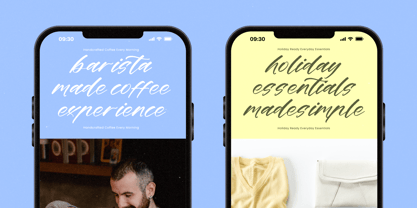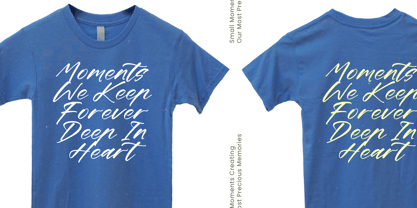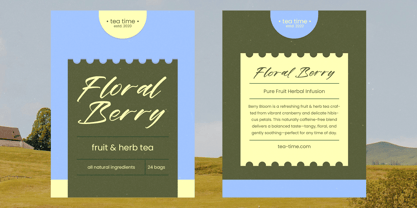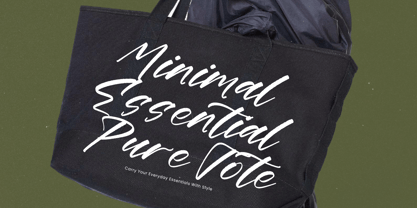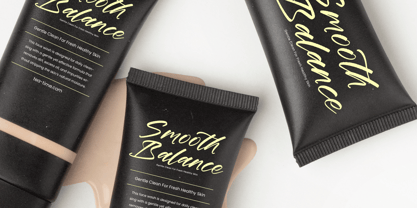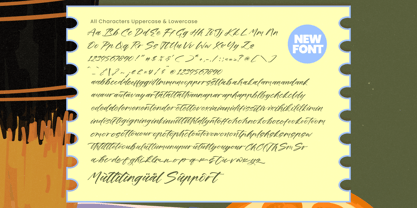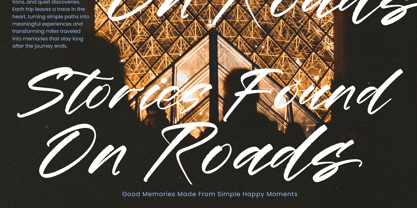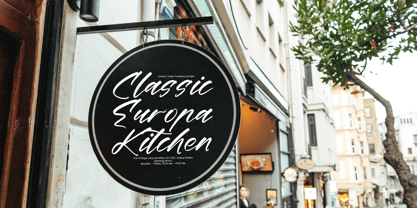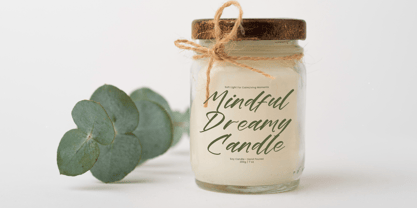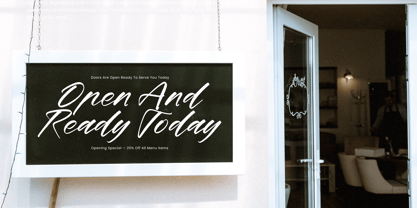
Tropical Coastal
von Stylishtype Studio
Die Schriftfamilie Tropical Coastal wurde von Heru Utama Putra entworfen und von Stylishtype Studio veröffentlicht. Tropical Coastal enthält 2 Stile und Familienpaketoptionen. Mehr über diese Familie
Tropical Coastal is a modern handbrush font crafted to bring vibrant coastal energy and natural texture into creative projects. Packed with 494 glyphs, including 136 dynamic ligatures and 26 stylistic alternates, this typeface delivers expressive movement, bold handwritten character, and flexible styling options suitable for logos, posters, apparel, packaging, social media graphics, quotes, and lifestyle branding. Its textured strokes and flowing brush rhythm transform simple text into eye-catching visual statements with warmth, personality, and effortless tropical charm.
Designer: Heru Utama Putra
Foundry: Stylishtype Studio